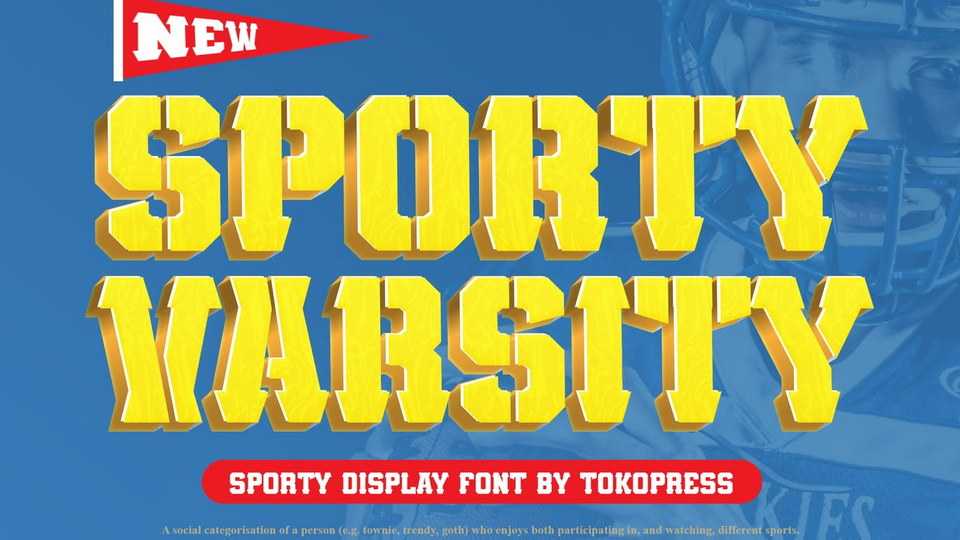
Download Sporty Varsity font, a stencil vintage typeface. Sweat, cheer, goal, points…. and a champion in the making. Sporty Varsity will bring full energy to your project in full gas.